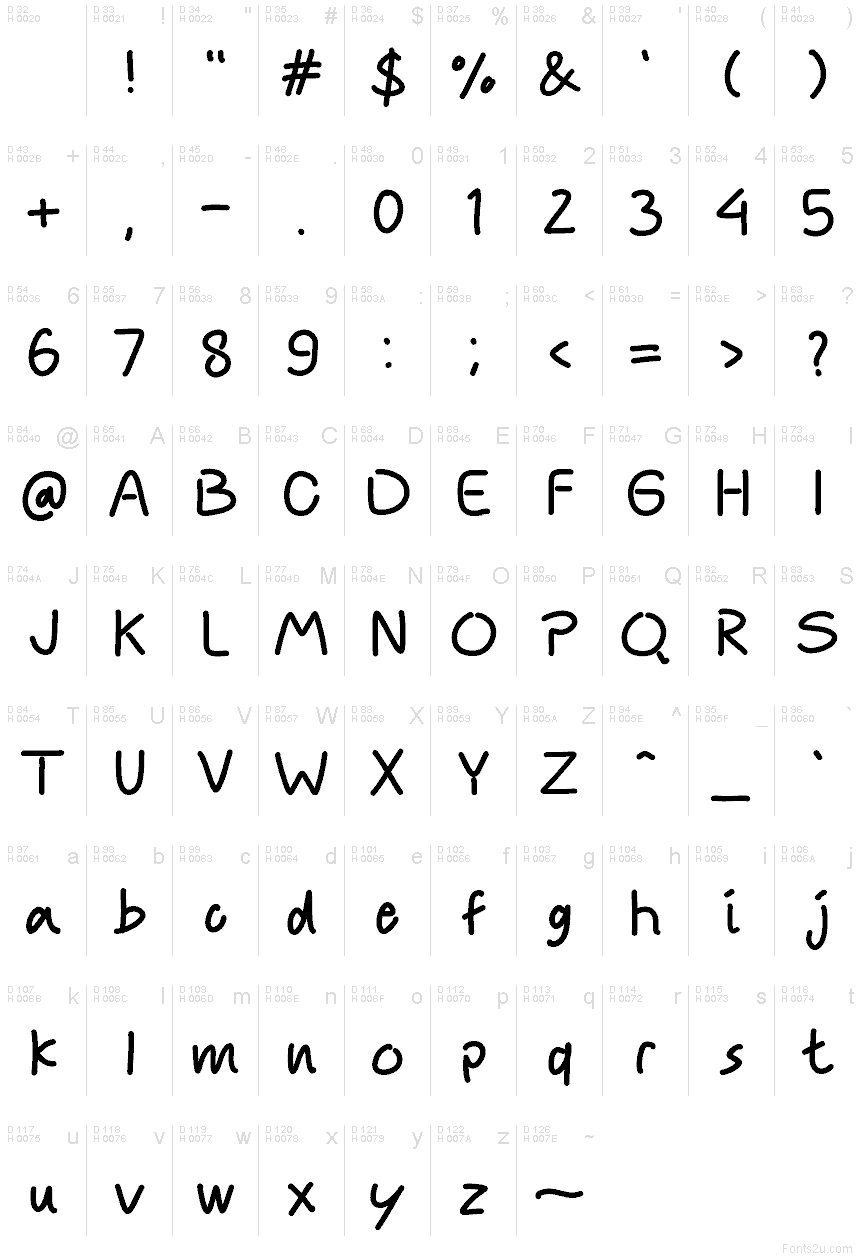
Beutiful Purple
Beutiful Purple font by Origin Type is a free handwritten font that captures a sleek and modern script style. Its casual feel and approachable aesthetics create a friendly vibe, perfect for adding a personal touch to any design project.